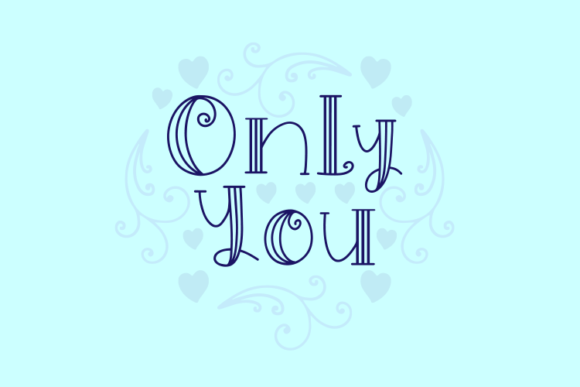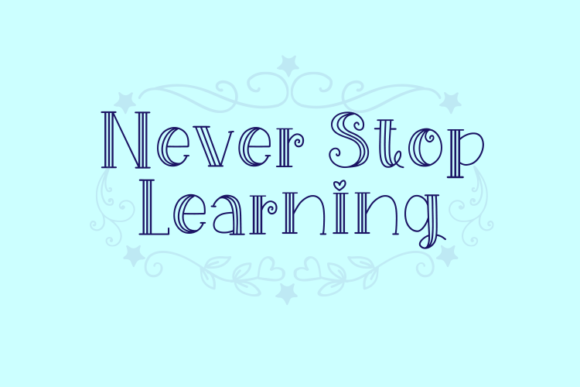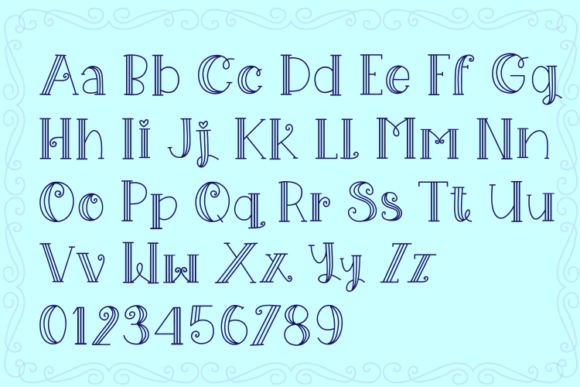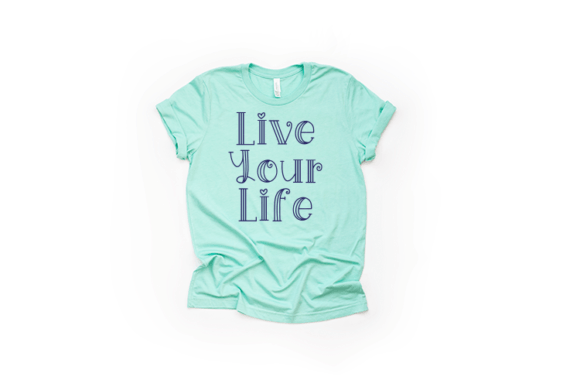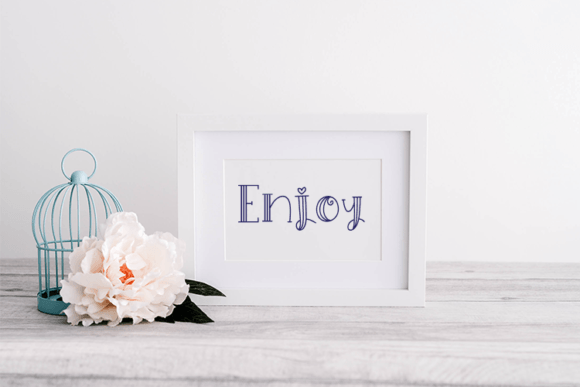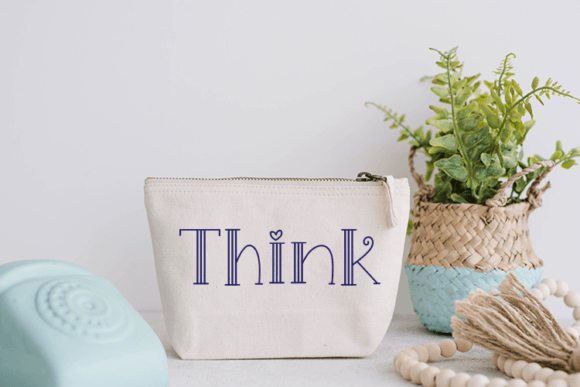
Skylar Font
About Skylar Font
This whimsical handwritten font exudes a sense of romance and fun, making it an excellent choice for a variety of creative projects. Its playful and charming style makes it a perfect fit for designing greeting cards, crafting wedding invitations, creating eye-catching T-shirt graphics, enhancing product packaging, designing labels, and much more.
The font’s whimsical handwritten style is characterized by its unique and lively character. It brings a sense of whimsy and spontaneity to your designs, making them more engaging and enjoyable. Whether you’re expressing heartfelt sentiments in greeting cards or adding a touch of playfulness to wedding invitations, this font effortlessly adapts to a wide range of creative endeavors.
This whimsical handwritten font is versatile and suitable for both digital and print applications. Whether you’re incorporating it into digital designs or using it for printed materials, the font maintains its whimsical charm. Its readability ensures that your message is conveyed with clarity, while its handwritten style adds a personal and joyful touch.
What sets this whimsical handwritten font apart is its ability to infuse a sense of romance and fun into your designs. It invites your audience to embrace the joy and delight that it conveys, creating memorable and heartwarming experiences. With this font as part of your creative toolkit, you have the means to craft designs that capture the essence of playfulness and love.
This whimsical handwritten font offers a range of customization options, allowing you to fine-tune your text to match your creative vision precisely. This flexibility empowers you to create designs that align perfectly with your artistic preferences.
In conclusion, this whimsical handwritten font is a delightful design asset that enhances your creative projects with romance, fun, and a playful spirit. Embrace its handwritten style, and let it inspire you to create designs that celebrate the joy of creativity and heartfelt moments. With this font at your disposal, your creative possibilities are expansive, enabling you to craft engaging and memorable works of art through its whimsical and captivating typography.